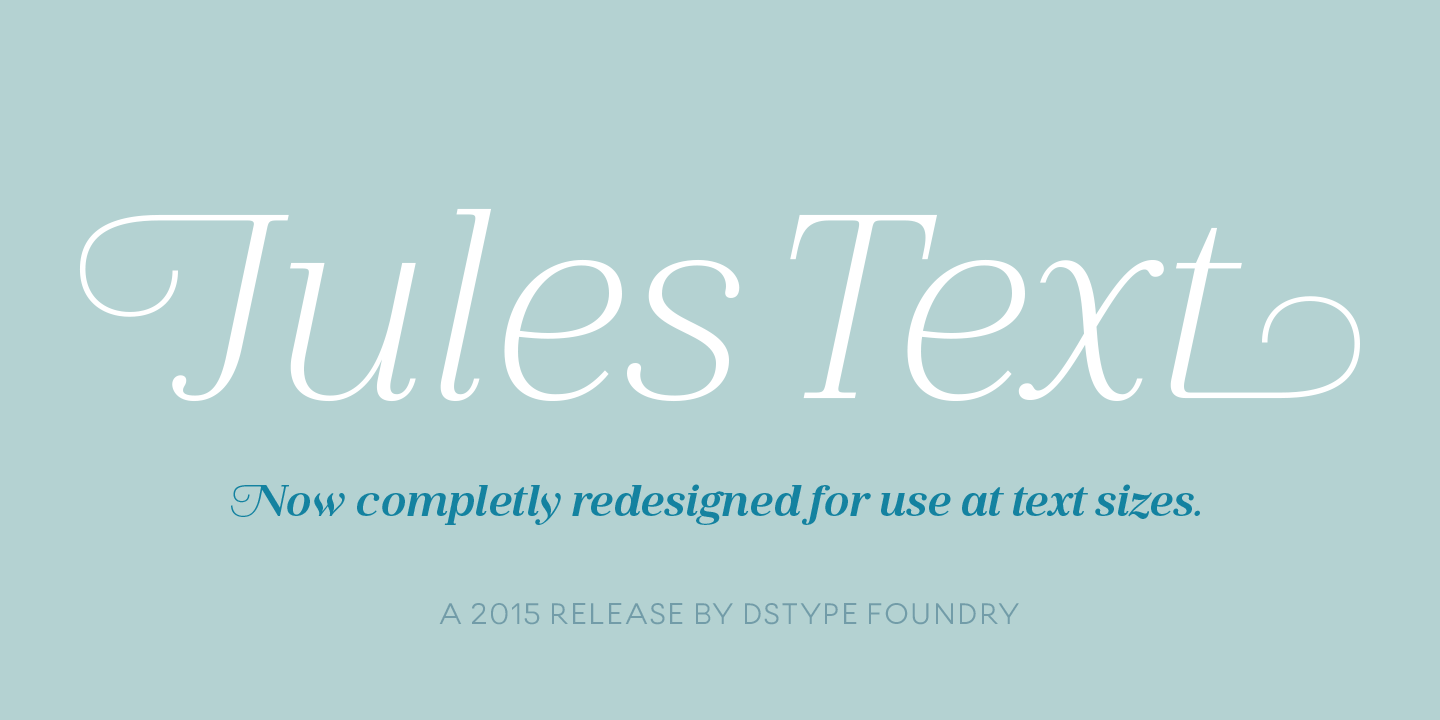
Jules Text Font excels in editorial design, book publishing, magazine layouts, newspaper headlines, academic publications, literary journals, blog headers, website content, branding materials, and professional documentation where readability and elegance are paramount.
What makes Jules Text Font exciting is its perfect balance between classical typography principles and modern design sensibilities. This font features exceptional readability across different sizes, making it ideal for both body text and headlines. The carefully crafted letterforms showcase subtle curves and refined details that enhance the overall reading experience. Its versatility allows designers to create sophisticated layouts that maintain professionalism while adding a touch of contemporary flair.
Jules Text Font family includes multiple weights and styles: Regular, Bold, Light, Medium, Italic, Bold Italic, Light Italic, and Medium Italic variants. Each weight maintains the font's distinctive character while offering different visual impacts for various design needs. The comprehensive character set supports multiple languages and includes special glyphs, punctuation marks, and numerical figures that ensure consistent typography across diverse applications.
The font's technical specifications include OpenType features, extensive language support, and optimized kerning pairs that ensure smooth text flow. Its scalability makes it suitable for both print and digital media, maintaining clarity from small body text to large display sizes. The thoughtful design process behind Jules Text Font resulted in a typeface that feels both timeless and contemporary, making it a valuable addition to any designer's toolkit.
Perfect for designers seeking sophisticated typography solutions, Jules Text Font combines functionality with aesthetic appeal, creating memorable visual experiences that engage readers and enhance brand communication effectively.